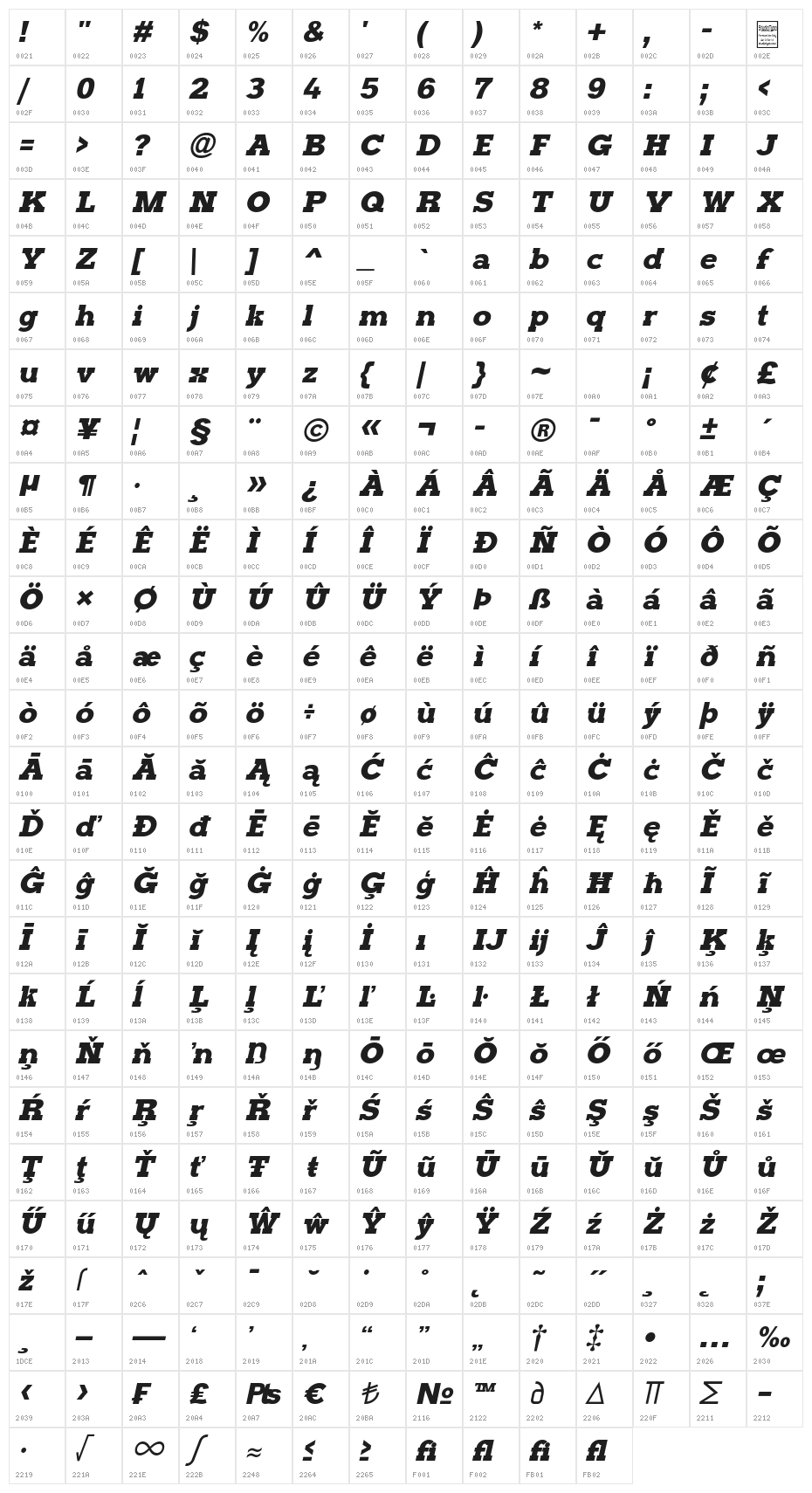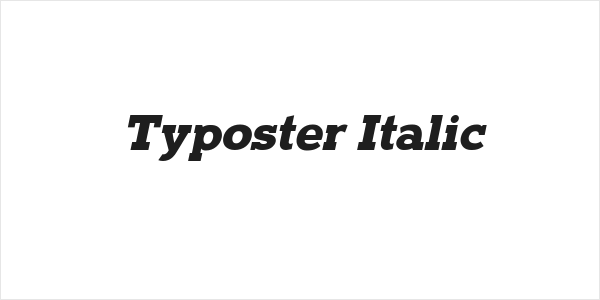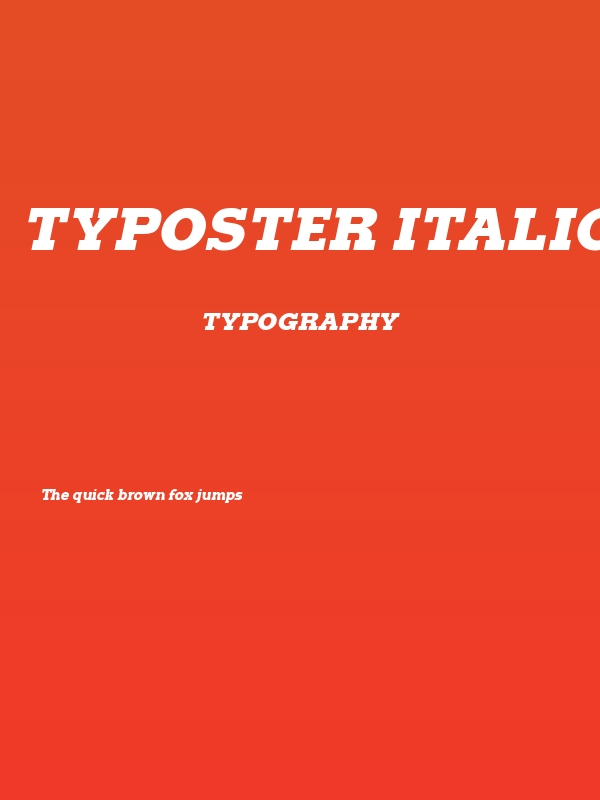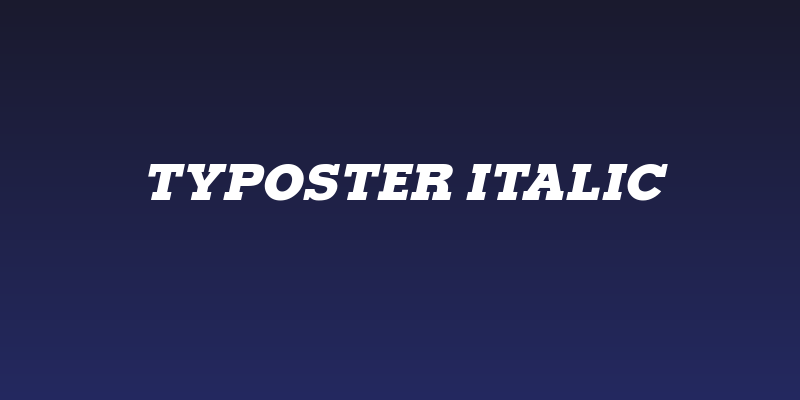
Typoster Italic Font
Typoster Italic Description
This font features a bold and dynamic italic style, characterized by its strong and confident strokes. The letters have a slight slant, giving them a sense of motion and energy. The uppercase and lowercase letters are well-proportioned, with a consistent weight throughout. The numbers and special characters maintain the same boldness, ensuring uniformity across all glyphs. The font's design is clean and modern, making it suitable for a variety of applications where a strong visual impact is desired.